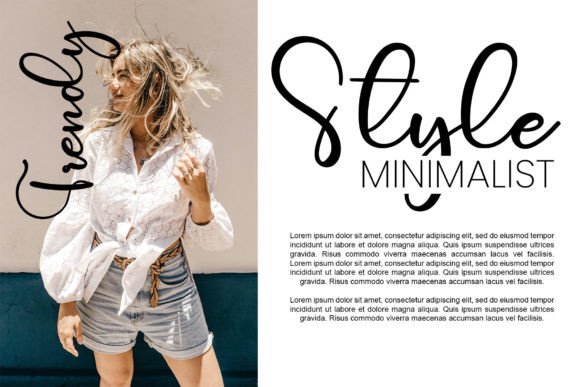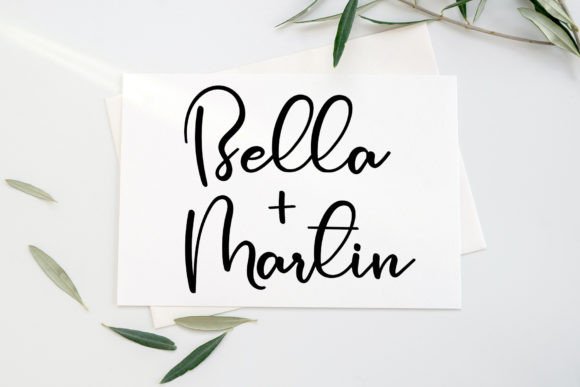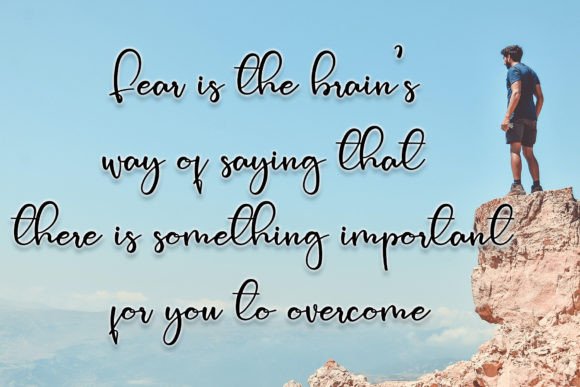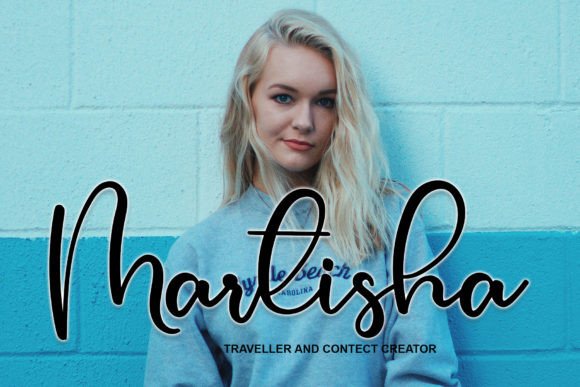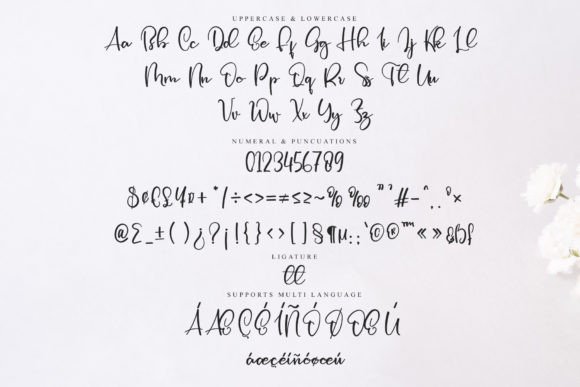
Introducing Backyard Font: A Sweet and Cursive Handwritten Delight
Are you a designer or crafter looking for a font that can add a touch of joy and romance to your projects? Look no further than Backyard Font, a sweet and cursive handwritten font that’s perfect for a variety of design ideas. In this article, we’ll explore the features and benefits of Backyard Font, and show you how it can elevate your designs to the next level.
The Charm of Backyard Font
Backyard Font is a gentle and elegant font that’s sure to capture the hearts of designers and crafters alike. Its cursive handwritten style gives it a warm and inviting feel, making it perfect for projects that require a personal touch. Whether you’re designing a wedding invitation, a greeting card, or a social media post, Backyard Font is sure to add a touch of whimsy and romance to your work.
Key Features of Backyard Font
- Sweet and Cursive Handwritten Style: Backyard Font features a beautiful cursive handwritten style that’s perfect for adding a touch of elegance to your designs.
- Highly Versatile: This font is suitable for a wide range of design ideas, from wedding invitations and greeting cards to social media posts and blog headers.
- Easy to Read: Despite its cursive style, Backyard Font is highly legible and easy to read, making it perfect for body text and headings.
- Scalable: Backyard Font is highly scalable, meaning it looks great at any size, from small captions to large headings.
Design Ideas to Get You Started
So, how can you use Backyard Font in your designs? Here are a few ideas to get you started:
- Wedding Invitations: Add a touch of romance to your wedding invitations with Backyard Font. Its elegant cursive style is perfect for formal and informal wedding stationery.
- Greeting Cards: Use Backyard Font to create beautiful and heartfelt greeting cards for special occasions like birthdays, anniversaries, and holidays.
- Social Media Posts: Add a personal touch to your social media posts with Backyard Font. Its cursive style is perfect for creating eye-catching headings and captions.
- Blog Headers: Use Backyard Font to create beautiful and elegant blog headers that will make your content stand out.
Tips for Using Backyard Font
Here are a few tips for getting the most out of Backyard Font:
- Use it with a Simple Background: Backyard Font looks best with a simple background that won’t compete with the font’s elegant style.
- Experiment with Colors: Try pairing Backyard Font with different colors to create a unique and eye-catching design.
- Mix it with Other Fonts: Don’t be afraid to mix Backyard Font with other fonts to create a unique and interesting design.
Backyard Font is a sweet and cursive handwritten font that’s perfect for designers and crafters looking to add a touch of joy and romance to their projects. Its elegant style, versatility, and ease of use make it a great addition to any design toolkit. Whether you’re designing a wedding invitation, a greeting card, or a social media post, Backyard Font is sure to elevate your designs to the next level.